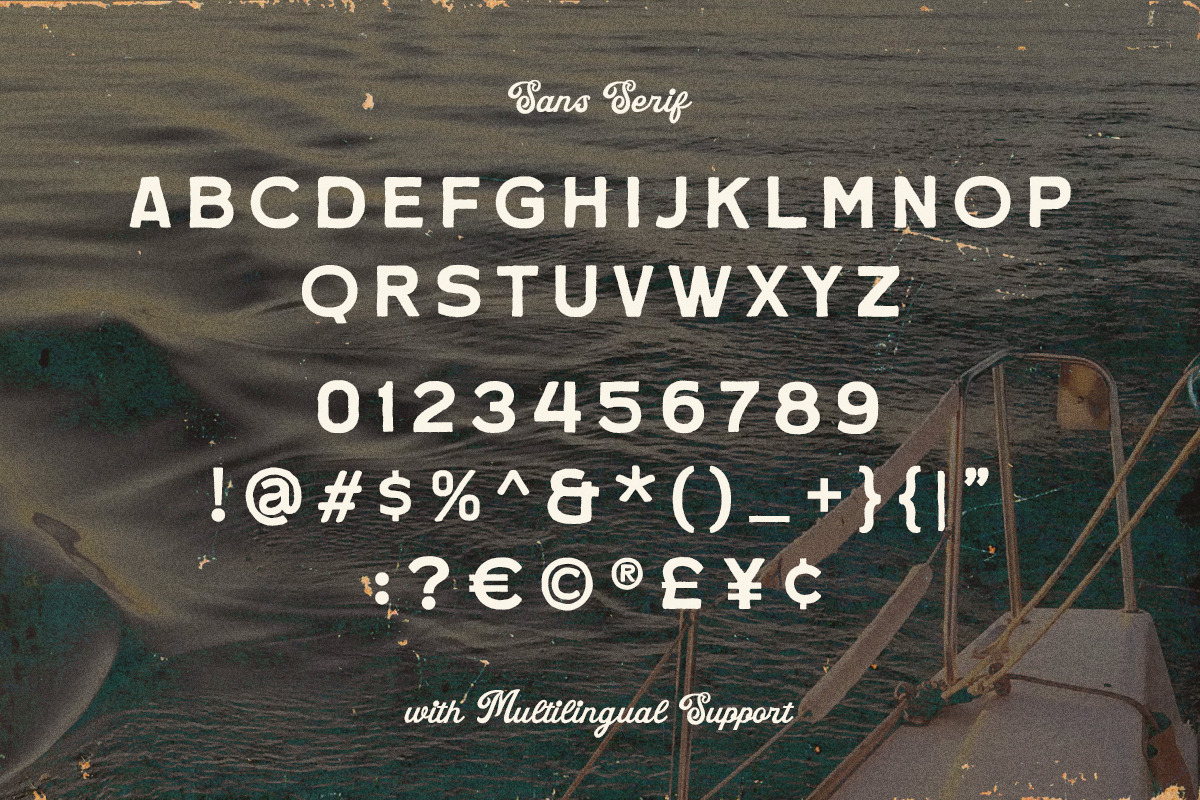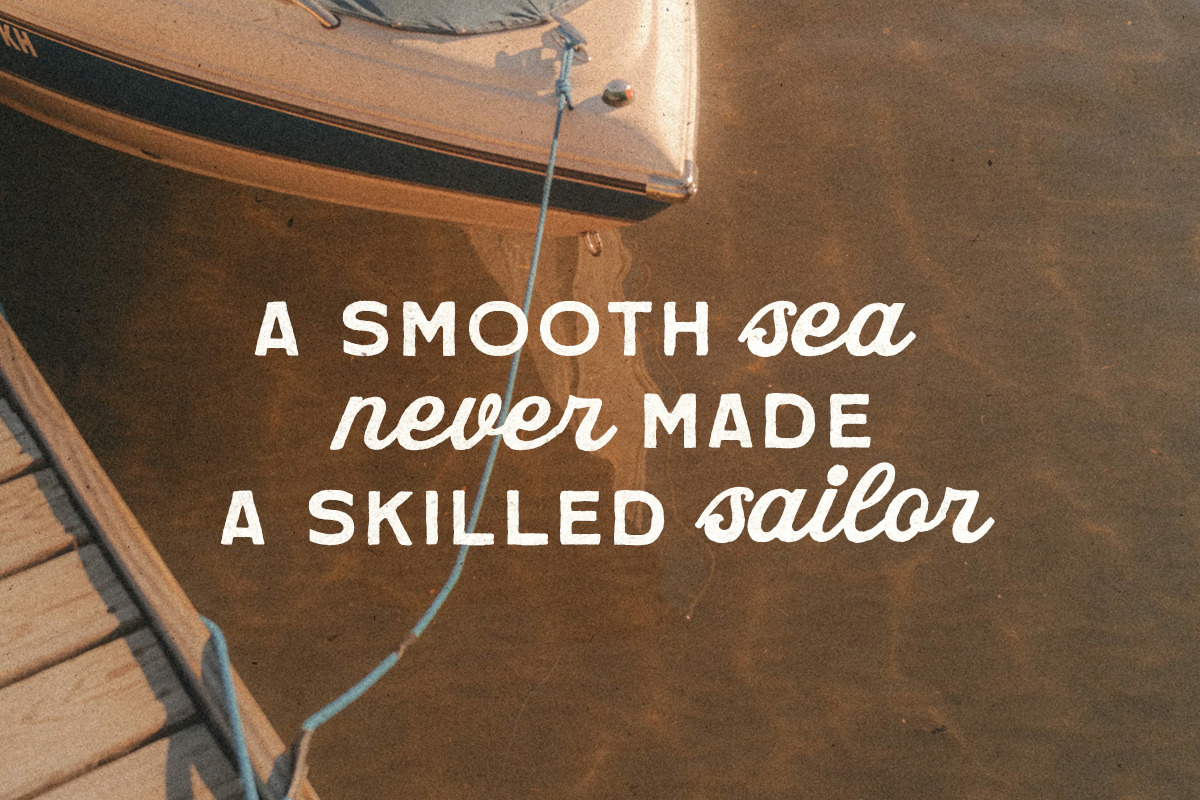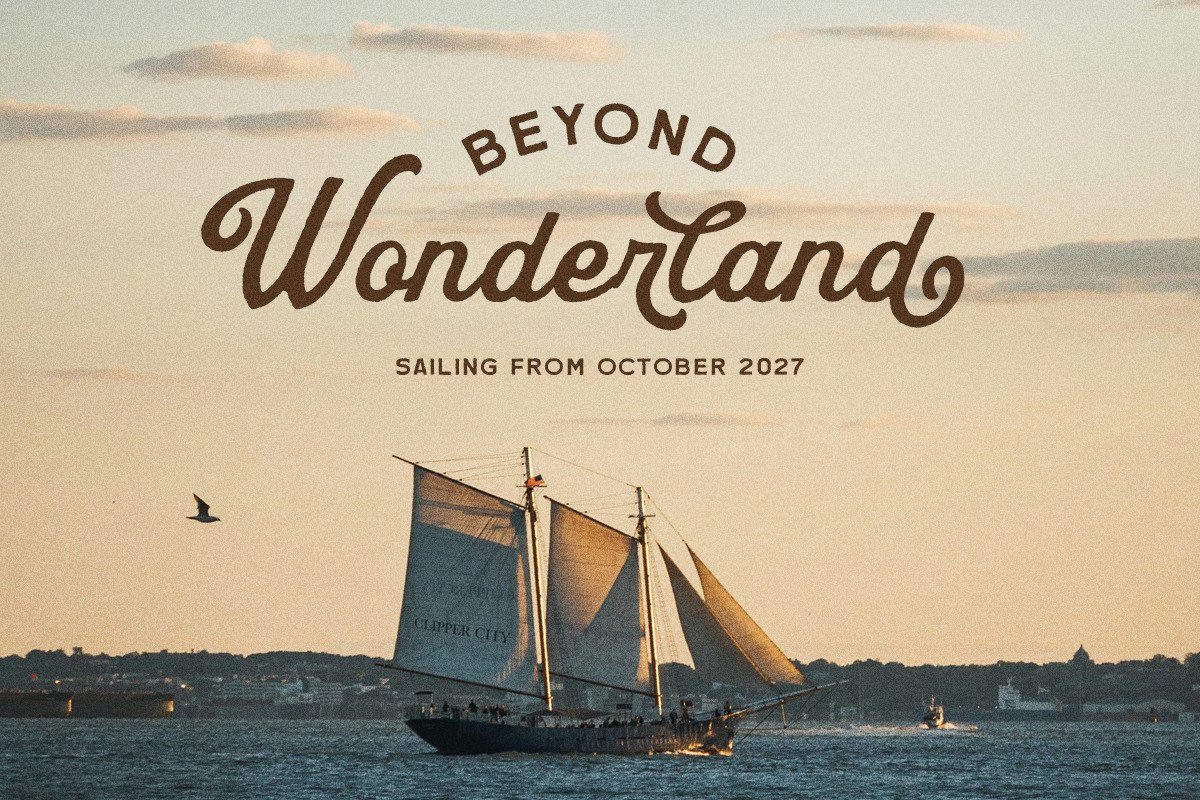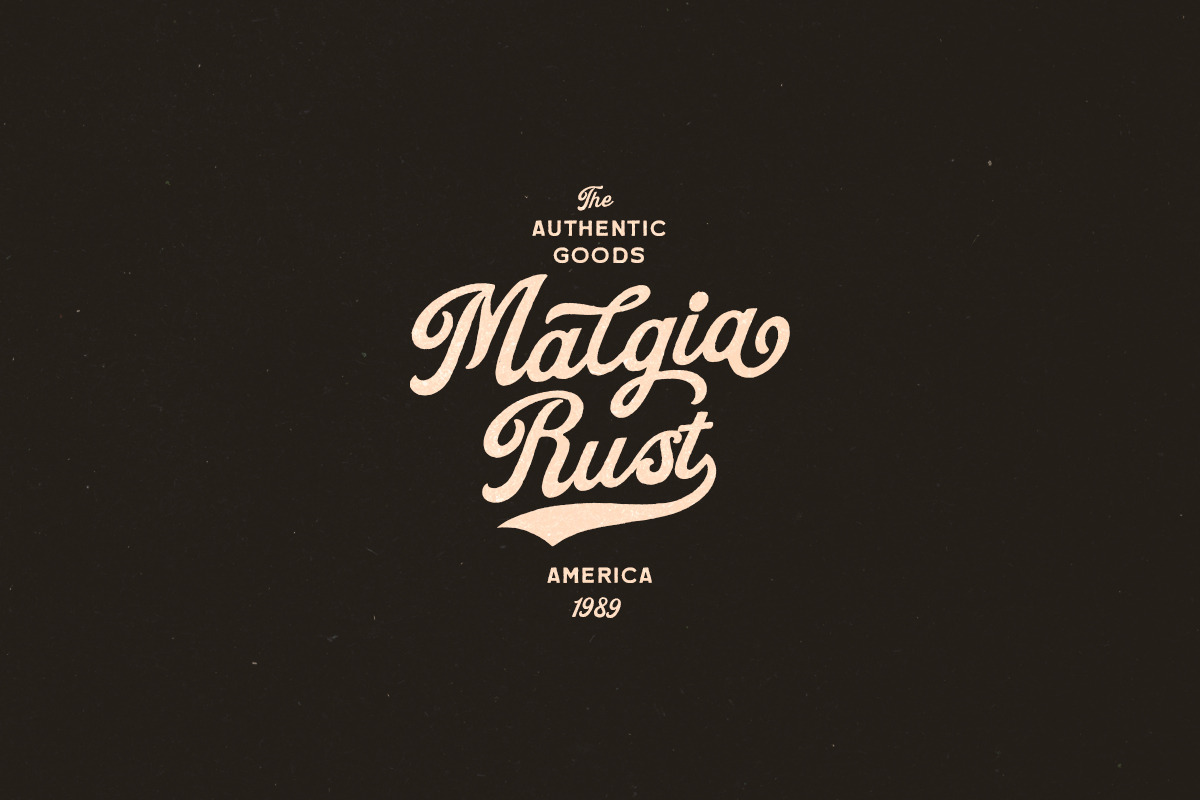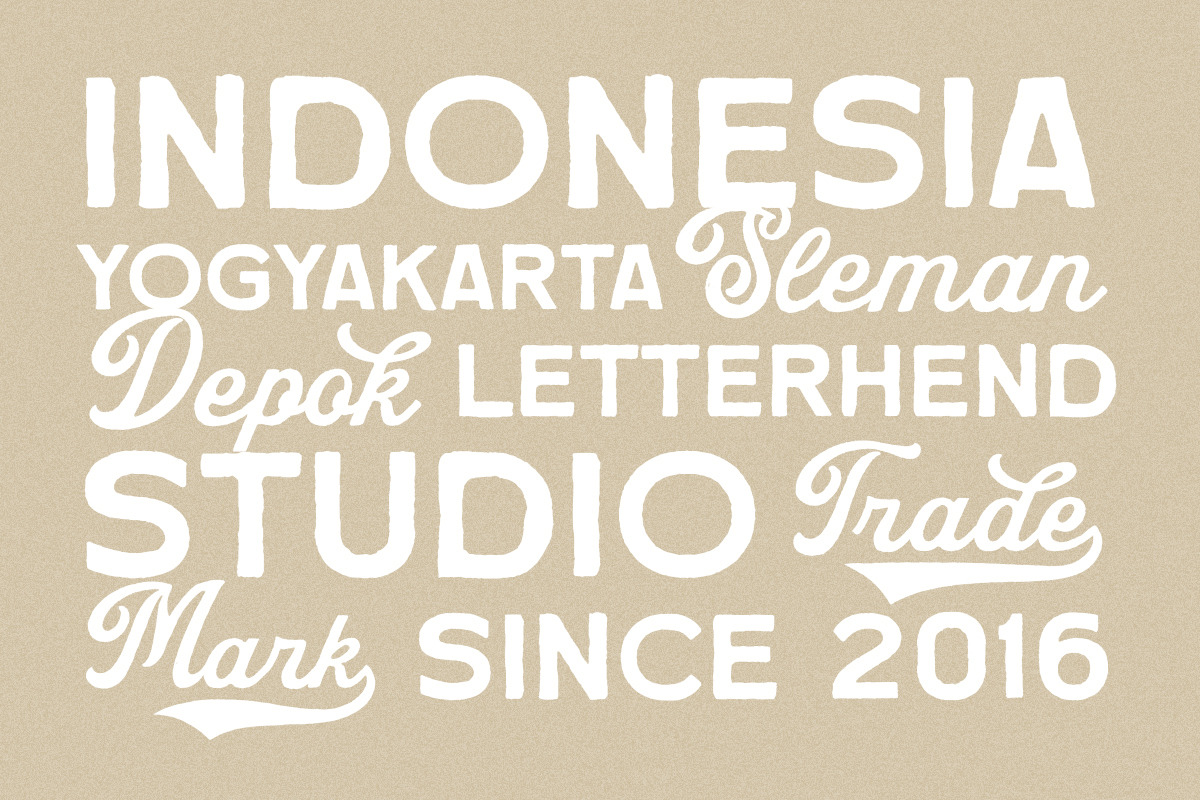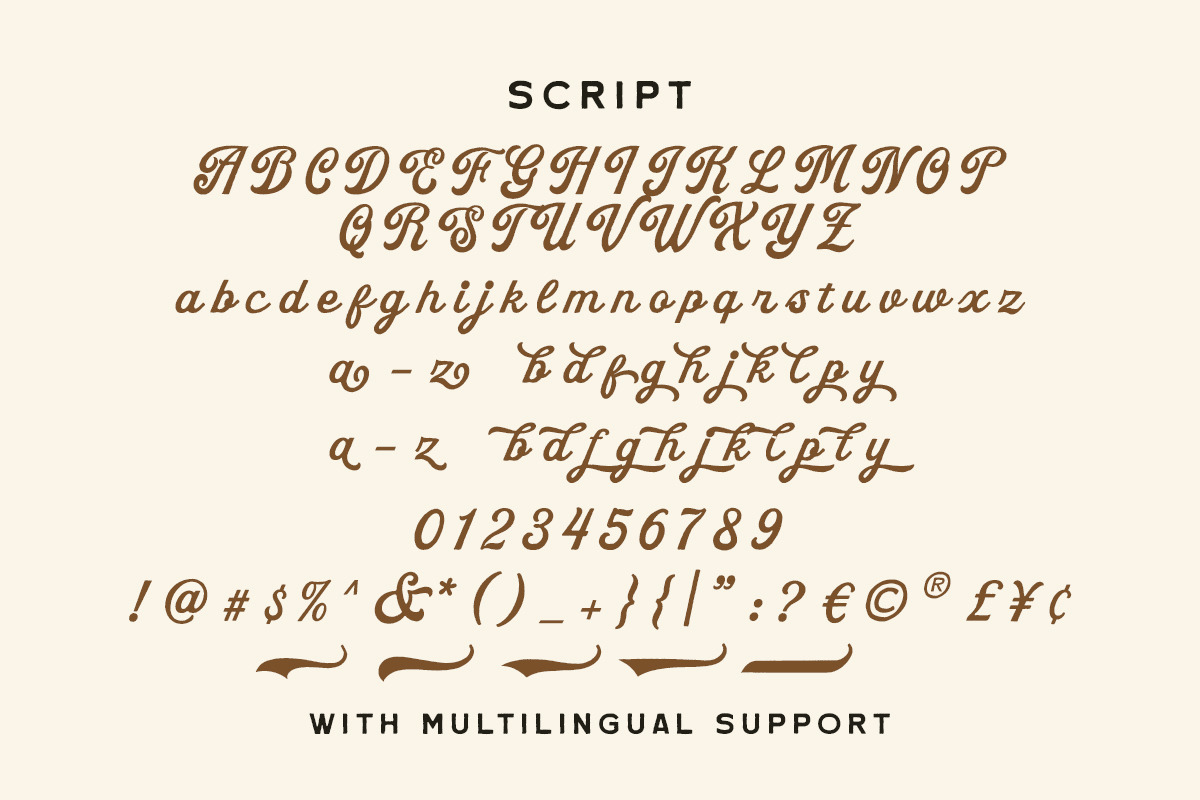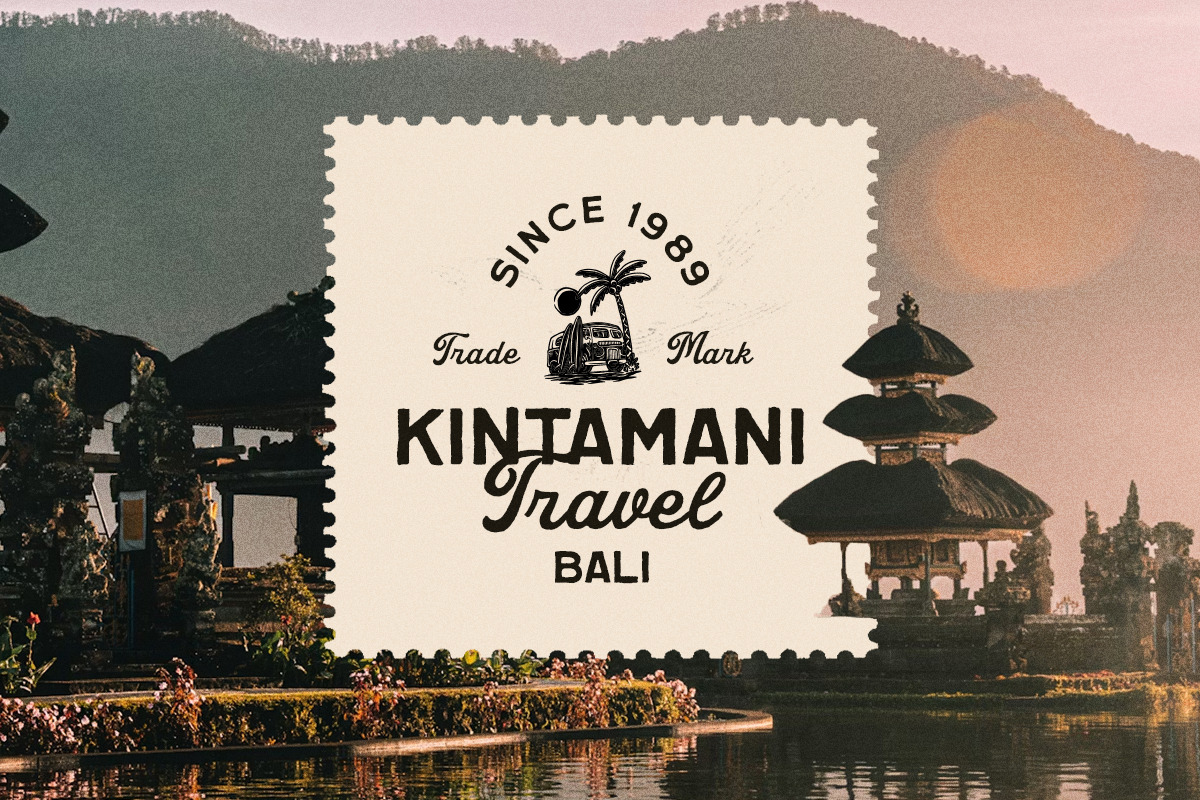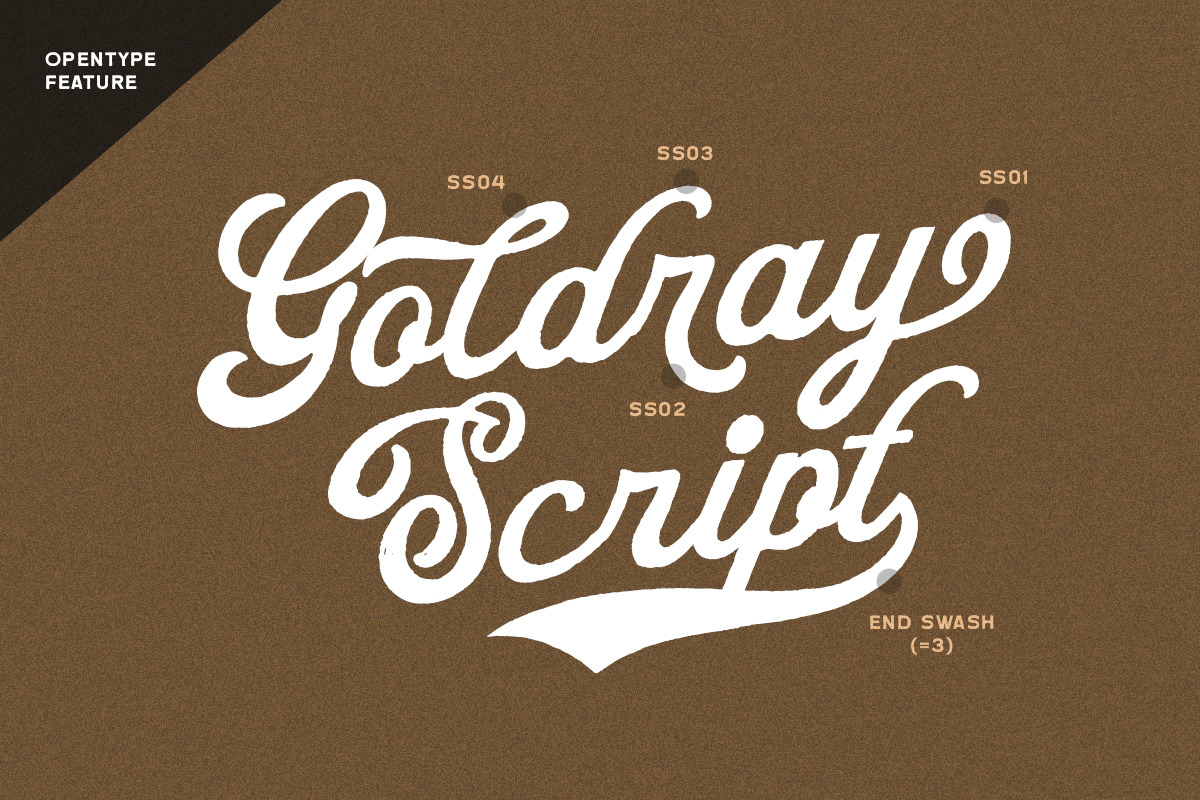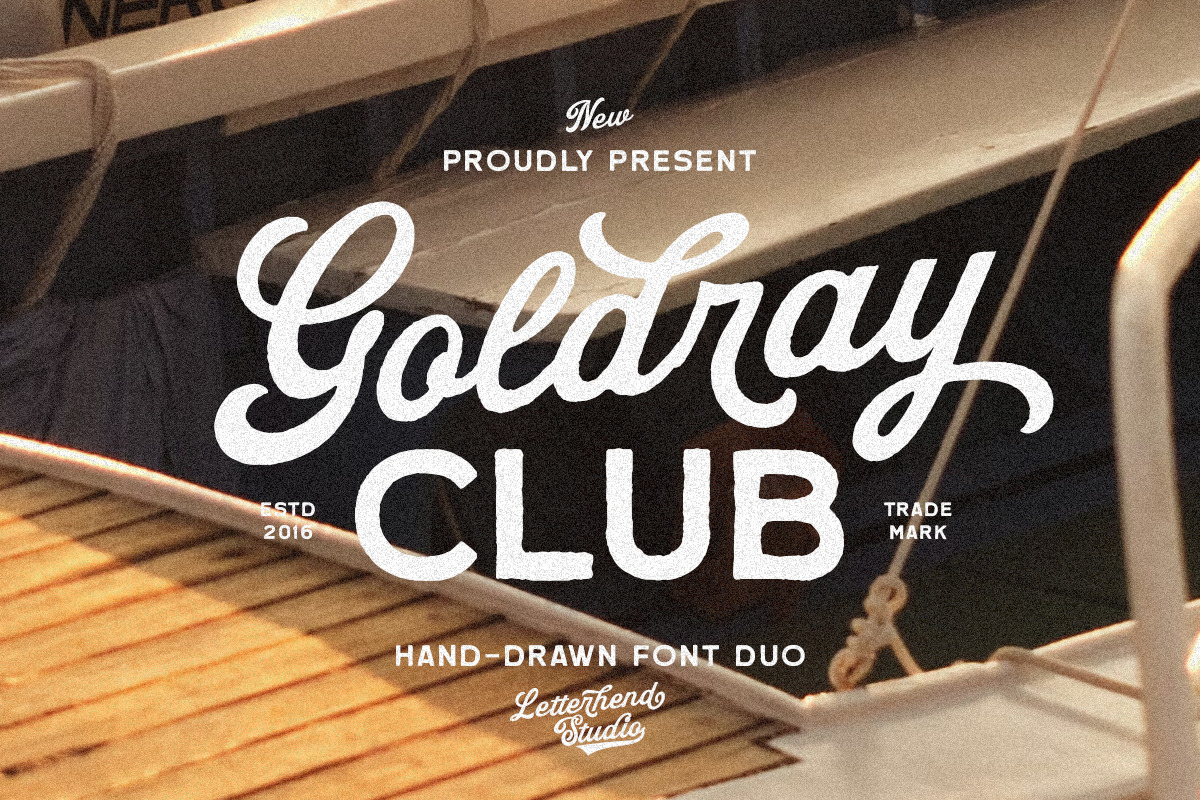
Goldray Club Retro Font Duo
Goldray Club rolls in smooth and sunny, blending a laid-back script with a clean sans, bringing that hand-drawn warmth while the sans keeps everything neat and easy to read—like a perfect duo that just clicks. It carries a relaxed retro vibe with a touch of classic travel charm, making it just right for logos, packaging, posters, and branding that feel warm, friendly, and a little nostalgic.